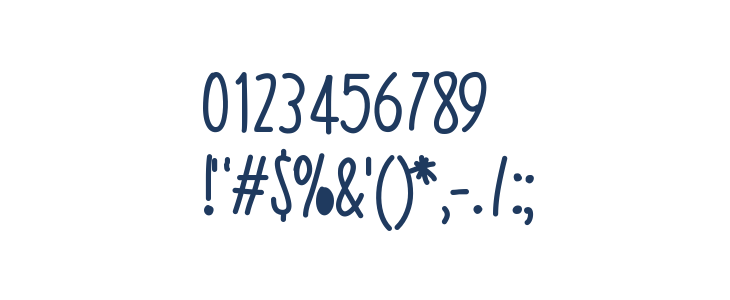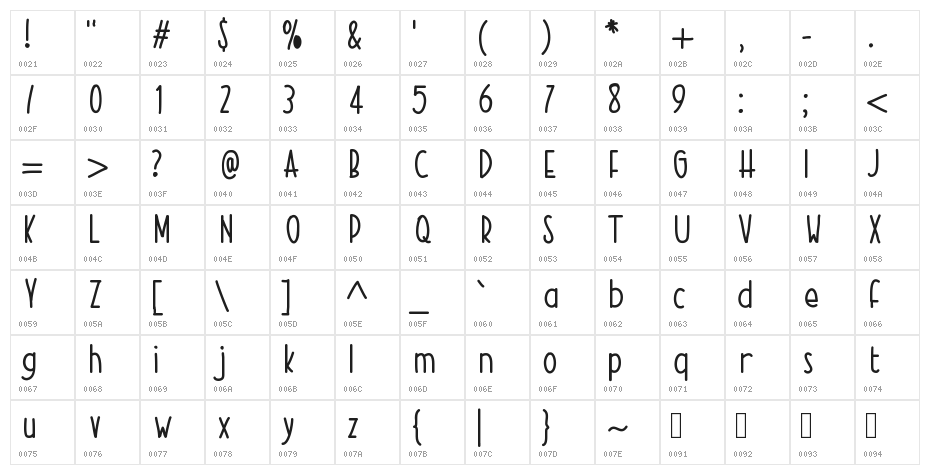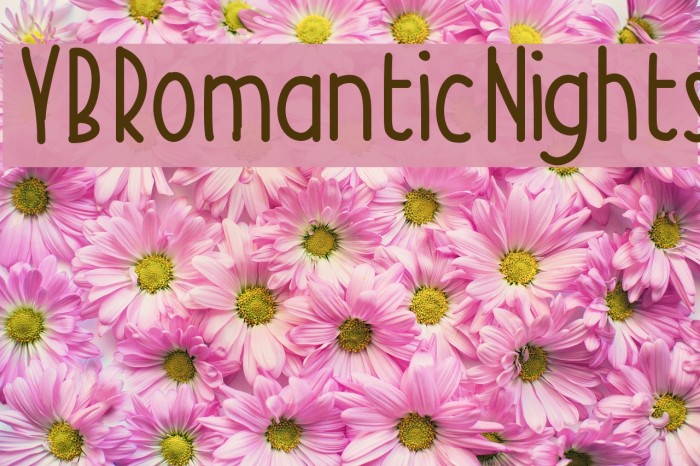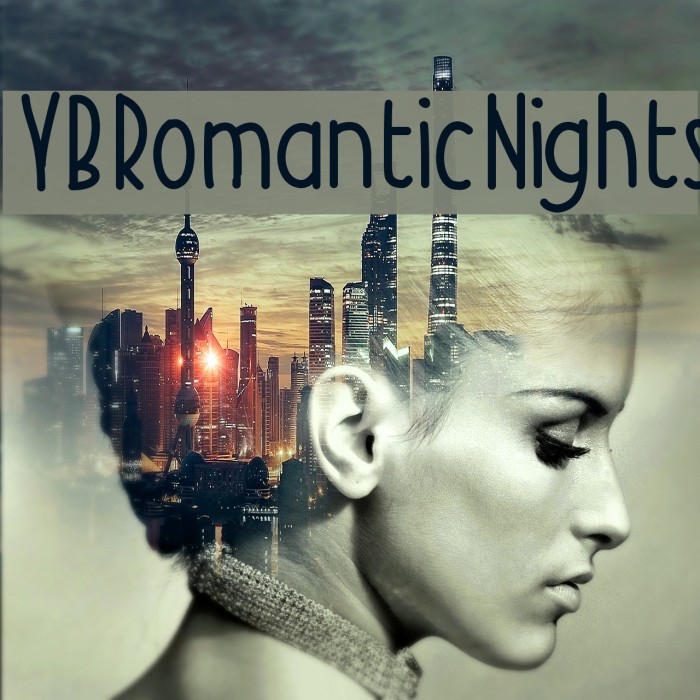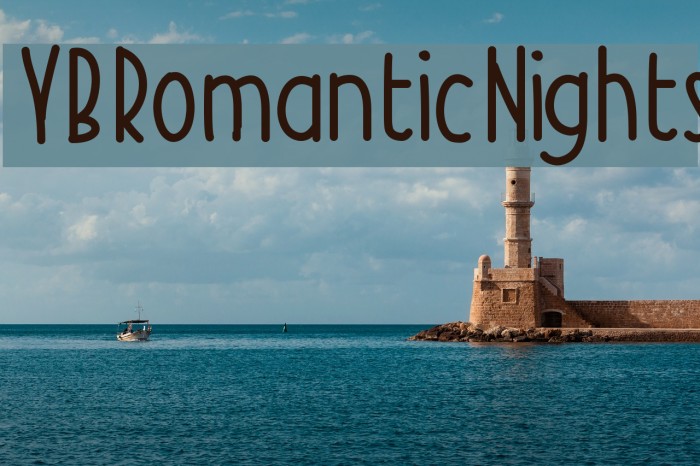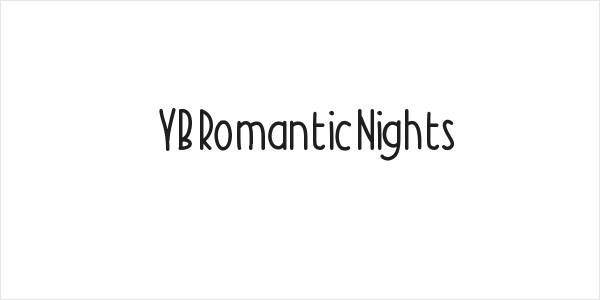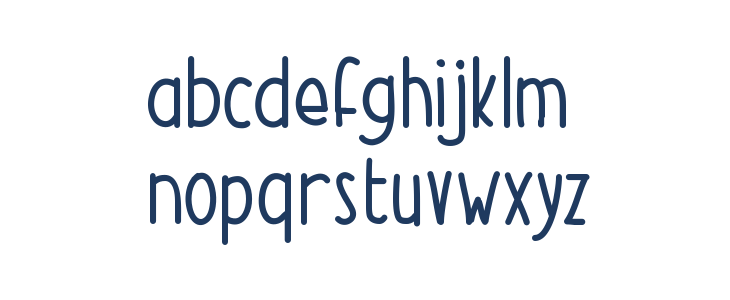
YBRomanticNights Font
YBRomanticNights Description
This font features a playful and whimsical design, characterized by its rounded and slightly irregular letterforms. The strokes are consistent in width, giving it a uniform appearance while maintaining a casual and friendly vibe. The uppercase letters are tall and narrow, while the lowercase letters have a more relaxed and open structure. The numerals and special characters follow the same playful style, making the font suitable for creative and informal applications. Its unique charm is perfect for projects that require a touch of personality and warmth.
| Proposed Projects | Ideal for children's books, greeting cards, playful branding, and casual invitations. |